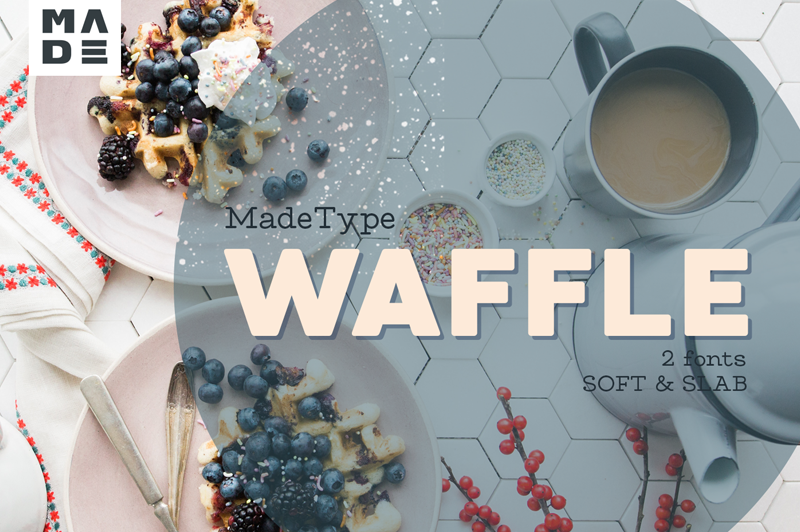
MADE Waffle - ideal for creating logos, headings. Applicable in the design of restaurants and cafes. MADE Waffle are two fonts created for combinations of your ideas. Font is FREE for PERSONAL USE. Contact me mail for commercial use and questions: Madetypeinfo@gmail.com |